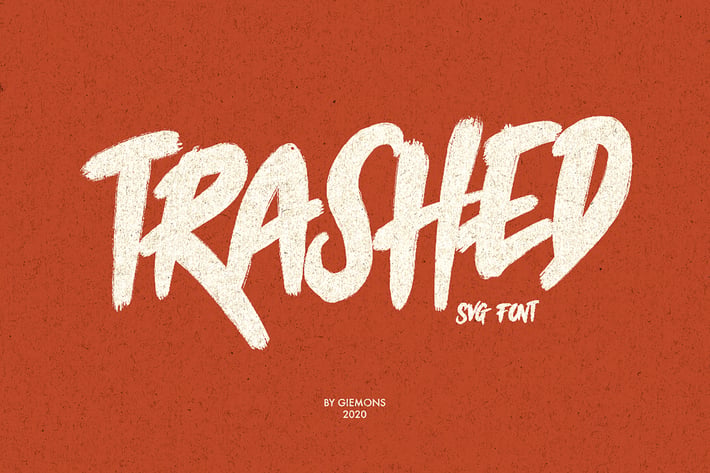
Trashed Typeface
a TRASHED is unique font with Open Type SVG Font. Can make it easier to convey the message in your design. Use for awesome display, labeling, clothing, movie sceen, poster, movie title, gigs, album covers, logos, and much more.
Uppercases & Lowercases
Numerals & Punctuations